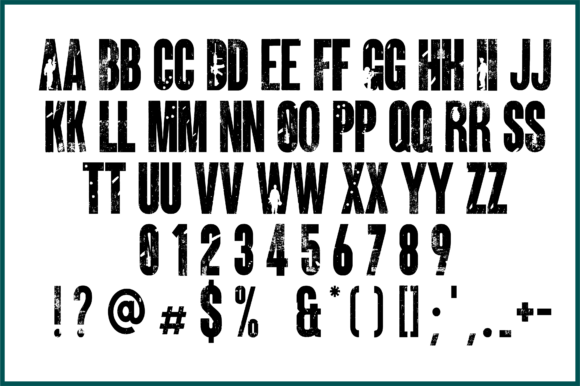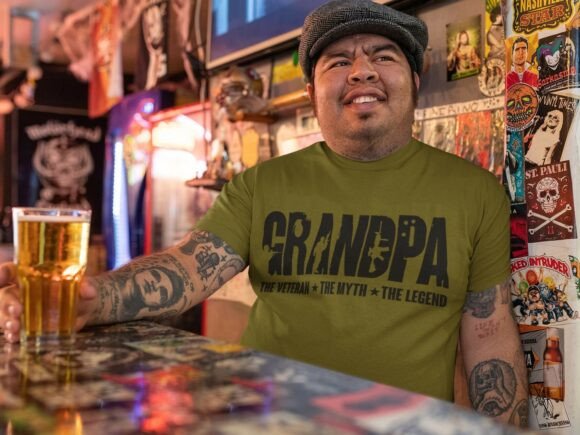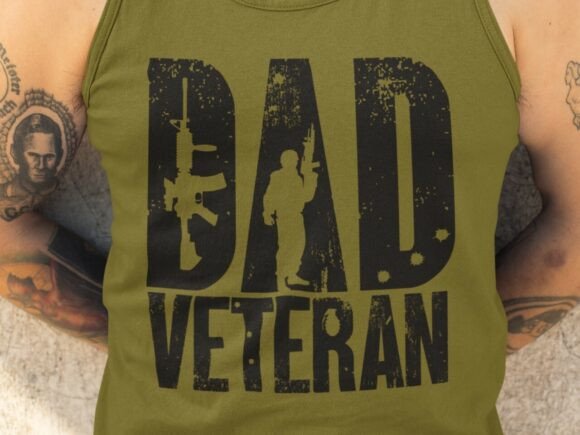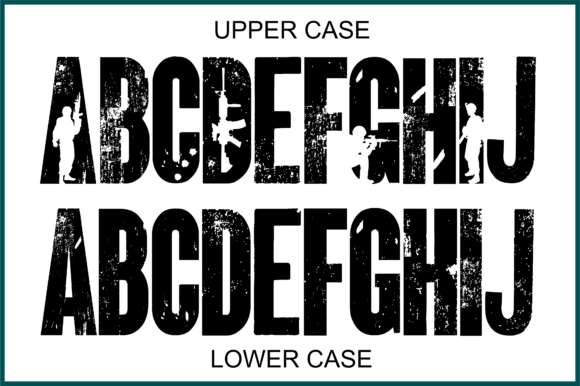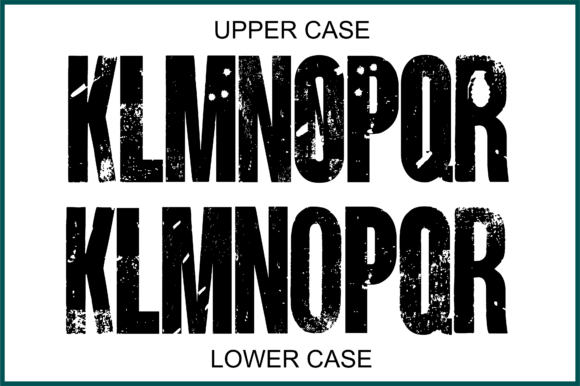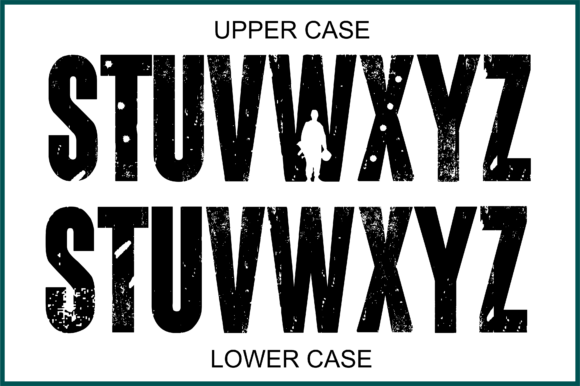
Introducing Army Font: The Ultimate Military Grunge Font for Bold Designs
Are you looking for a font that exudes a bold, rugged vibe for your next design project? Look no further than the Army Font, a military grunge font that brings a distressed texture and military-inspired design to the table. This font is perfect for creating impactful logos, posters, and apparel that require a gritty, authentic military aesthetic.
What is Army Font?
Army Font is a unique and versatile font that features a mix of uppercase and lowercase letters with a worn-out effect, giving it a distressed and rugged look. The font includes a full set of characters, numbers, and symbols, making it ideal for a wide range of design projects. Whether you’re creating a logo, poster, or apparel, Army Font is the perfect choice for adding a bold and edgy touch.
Key Features of Army Font
- Distressed Texture: The font features a distressed texture that gives it a worn-out and rugged look, perfect for creating a gritty and authentic military aesthetic.
- Military-Inspired Design: The font’s design is inspired by military typography, making it ideal for projects that require a bold and edgy touch.
- Full Set of Characters: The font includes a full set of characters, numbers, and symbols, making it versatile and easy to use.
Army Font is perfect for designers and crafters who want to add a bold and edgy touch to their projects. Whether you’re creating logos, posters, apparel, or any other type of design, this font is sure to make a statement. The font’s versatility and ease of use make it ideal for a wide range of projects, from commercial designs to personal crafts.
Use Cases for Army Font
- Logo Design: Use Army Font to create bold and impactful logos that make a statement.
- Poster Design: Create eye-catching posters with a gritty and authentic military aesthetic.
- Apparel Design: Add a bold and edgy touch to your apparel designs with Army Font.
- Branding: Use Army Font to create a bold and recognizable brand identity.
Why Choose Army Font?
There are many fonts available that offer a similar aesthetic, but Army Font stands out for its unique combination of distressed texture and military-inspired design. The font’s versatility, ease of use, and multi-format support make it an excellent choice for designers and crafters. Here are just a few reasons why you should choose Army Font for your next project:
- Unique Design: Army Font offers a unique and distinctive design that sets it apart from other fonts.
- High-Quality: The font is designed with high-quality and clarity in mind, making it perfect for large and small designs.
- Easy to Use: Army Font is easy to use and integrate into your creative work, making it perfect for designers and crafters of all skill levels.
In conclusion, Army Font is a military grunge font that brings a bold, rugged vibe to the table. With its distressed texture and military-inspired design, it’s perfect for creating impactful logos, posters, and apparel. The font’s versatility, ease of use, and multi-format support make it an excellent choice for designers and crafters. So why wait? Download Army Font today and add a bold and edgy touch to your next design project!